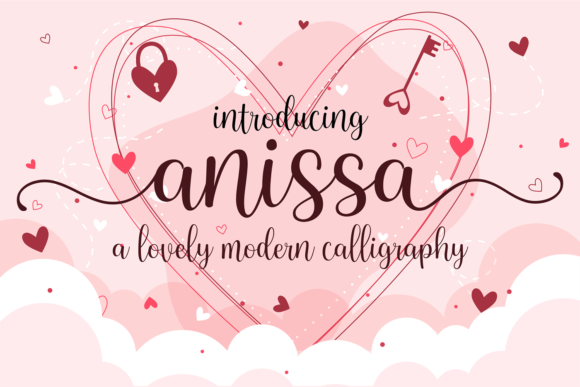
Welcome to the realm of enchantment, where Anissa Font reigns supreme, a modern and elegant calligraphic script font that will cast a spell on your designs. Surrender to its authentic feel and conjure captivating wedding invitations, breathtaking stationary art, mesmerizing social media posts, and heartfelt greeting cards.
Anissa Font is not merely a collection of letters; it's an artistic journey that will ignite your creativity and leave you spellbound. Embark on a voyage of self-expression, where your words dance with grace and elegance, captivating all who lay eyes upon them.
With Anissa Font, every stroke of the pen is a stroke of brilliance, effortlessly flowing from your fingertips to the digital canvas. Its varying baseline, smooth lines, and stunning alternates create a visual symphony, transforming your designs into masterpieces. Accessing its enchanting glyphs and swashes is a breeze, thanks to its PUA encoding, ensuring that your creations possess an unparalleled charm.
Step into a world where beauty and functionality intertwine, and let Anissa Font be your muse. Its meticulous design ensures flawless execution, bringing your visions to life with captivating finesse. Discover the limitless possibilities that await, and let Anissa Font enchant your designs, leaving a lasting impression on all who encounter it.